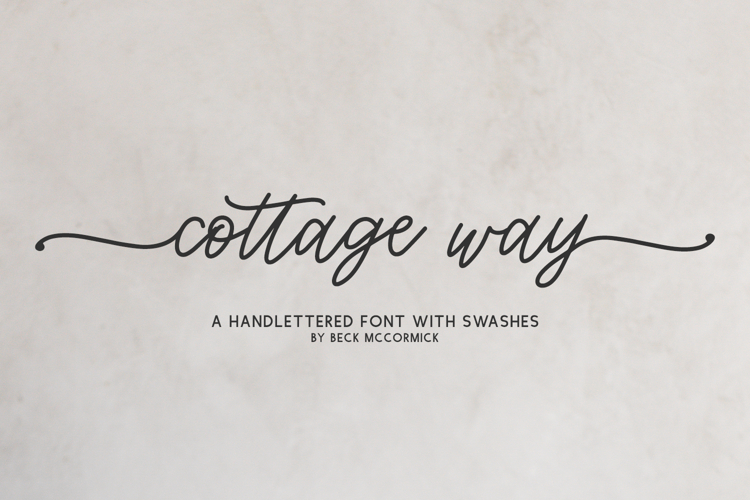
Cottage Way Script
Introducing Cottage Way, a thin, handlettered modern calligraphy font with swashes.
Cottage Way is best for:
- wedding invitations, wedding favors, or wedding decor
- feminine, crafty projects with your Cricut or Silhouette machine, or your SVG design business
- whimsical farmhouse decor and crafts
- website design + website accents, blog design
- feminine graphic tee shirt design & other apparel
Cottage Way includes:
- 53 alternate character: 1 r in initial form, 26 front swash characters a-z, and 26 terminal swash characters a-z
- 12 ligatures: bb, dd, ee, ff, ll, mm, nn, oo, pp, rr, ss, tt